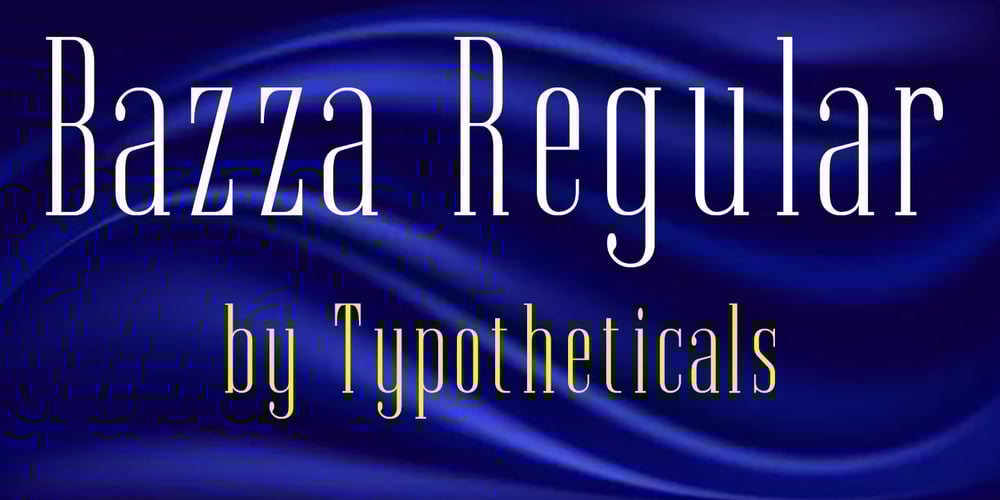
Bazza
Bazza font
Bazza Font Family was designed by Graham Meade and published by Typotheticals. Bazza contains 20 styles and family package options. BazzaWhat is a Bazza, well, usually it’s the name of a bloke standing over a barbeque cooking meat for his friends, but in this case its the digital version, in text format, of the same thing. Everybody needs a Bazza in their life. This Bazza has a few variations to his behavior, though, utilizing his warped imagination, and his poorly educated Scribble,